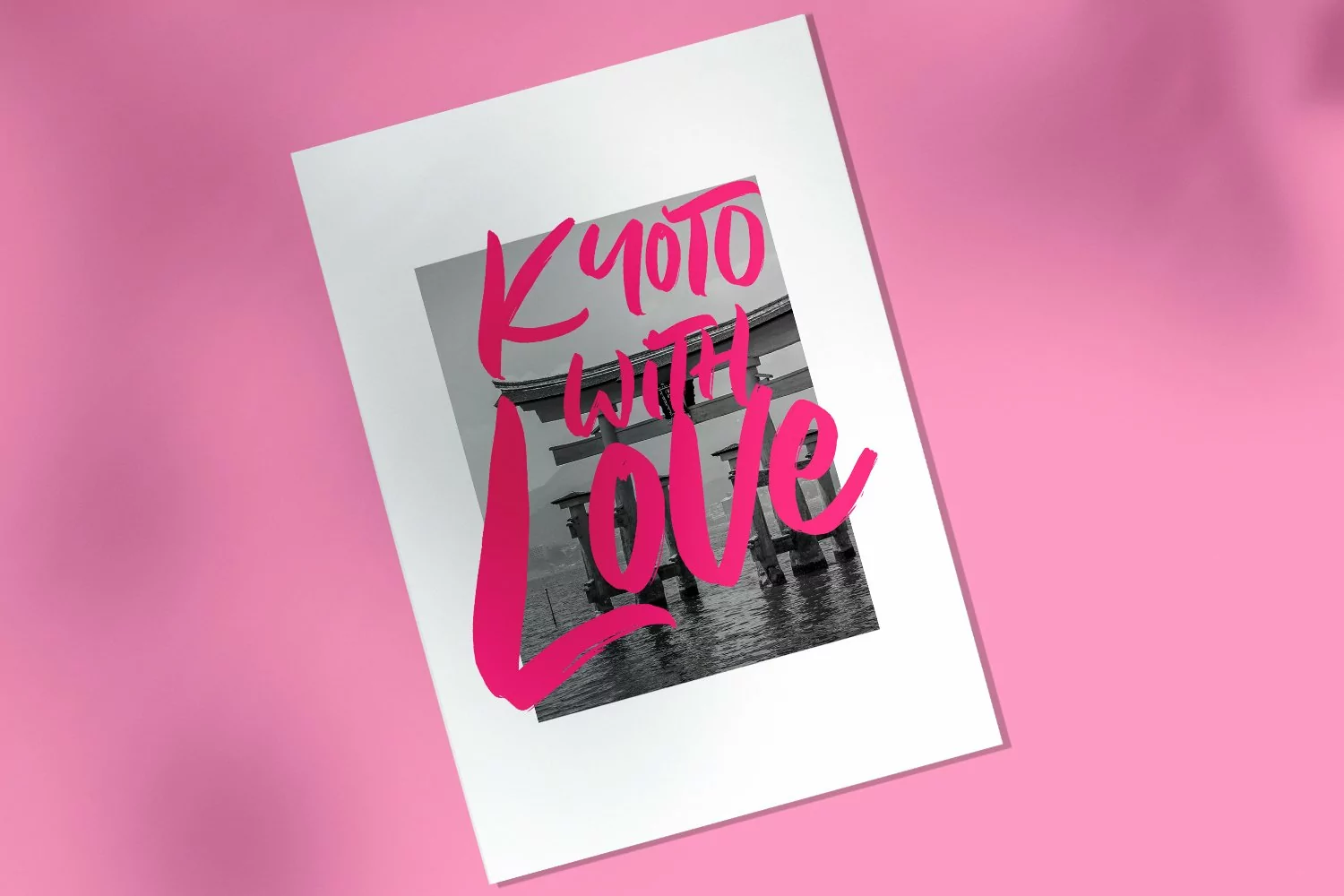
Harashi is a Handwritting brush font inspired by the classic Japanese brush stroke, it is casual and cool font. Harashi includes opentype features Ligatures and Alternate lowercase. It support multilingual more than 100+ language. This font is good for logo design, Movie Titles , Books Titles and any awesome project you create. Make stunning work with Harsh Brush font.
Harashi